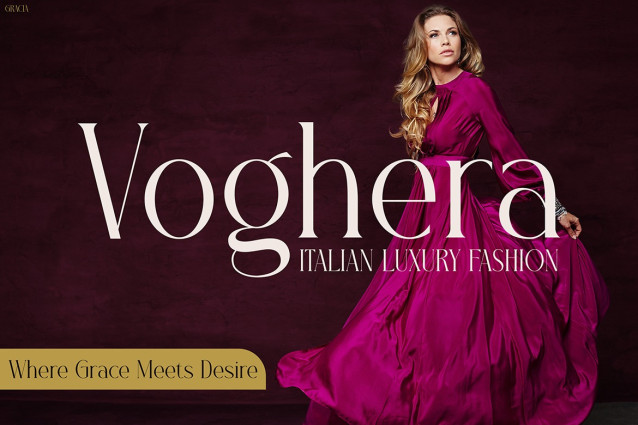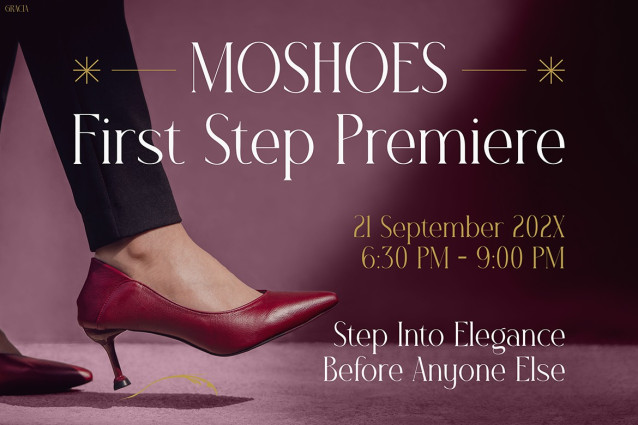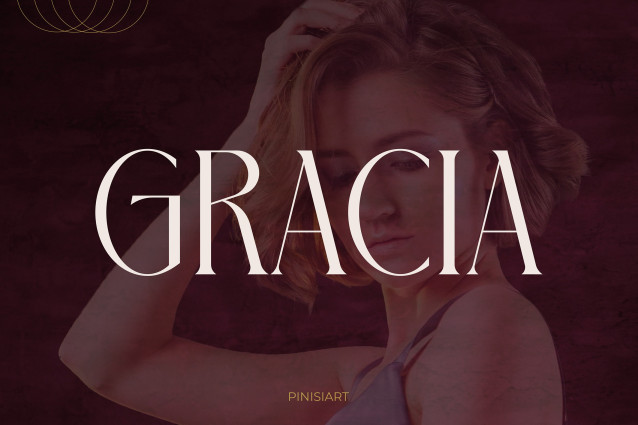
Gracia Serif Font
Gracia Serif Font is a luxurious typeface that effortlessly combines modern elegance with timeless sophistication. From the very first glance, it draws the eye with its graceful curves, high-contrast strokes, and perfectly balanced proportions. Moreover, its refined charm instantly elevates any design, whether for bold headlines or delicate captions. As a result, your message becomes not just readable, but visually captivating. Because of its versatile design, Gracia adapts seamlessly across different mediums, making it equally stunning in both digital and print projects.
Gracia offers a harmonious blend of fashion-inspired elegance and modern versatility. In addition, its smooth curves and clean lines allow designers to experiment freely with both uppercase and lowercase layouts. Consequently, it works beautifully across a wide range of backgrounds, from minimalist monochrome palettes to vibrant, high-fashion spreads. Furthermore, its style communicates luxury without being overly ornate, which makes it perfect for high-end brand messages with a contemporary twist. For instance, the font’s couture-inspired forms give every word the feeling of belonging on a glossy magazine cover. Therefore, it is ideal for projects that require both beauty and clarity.